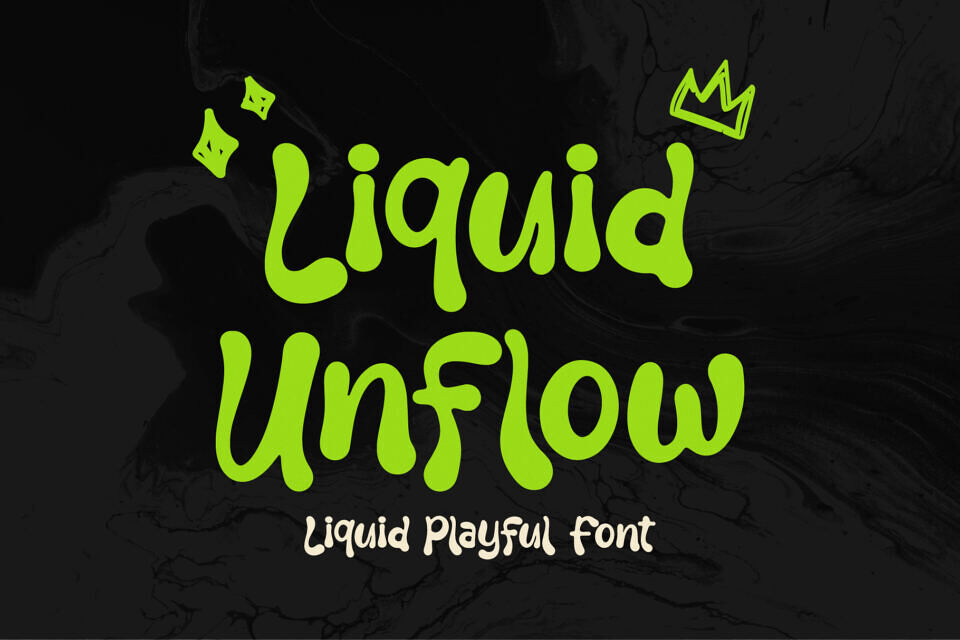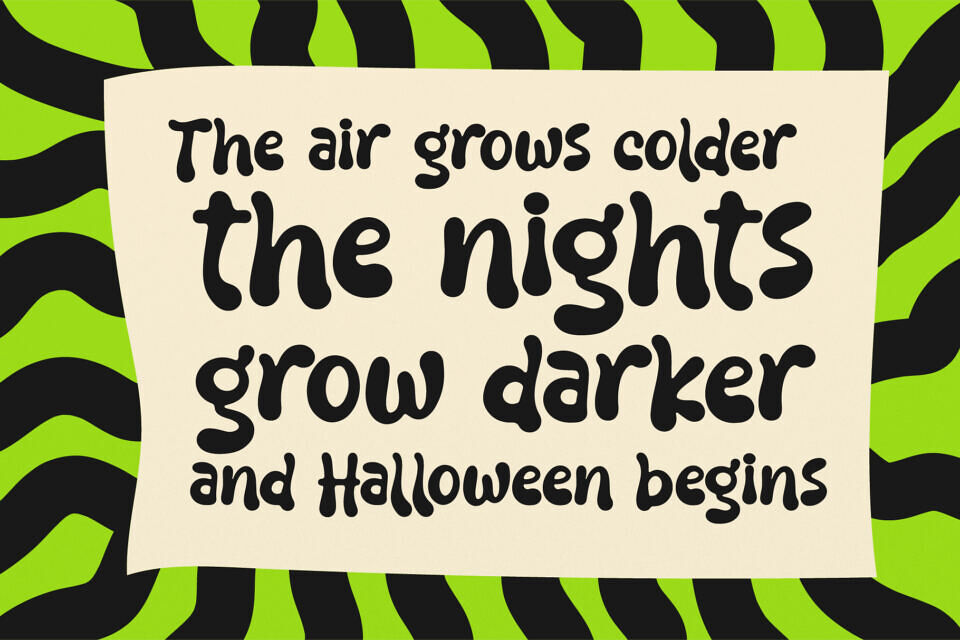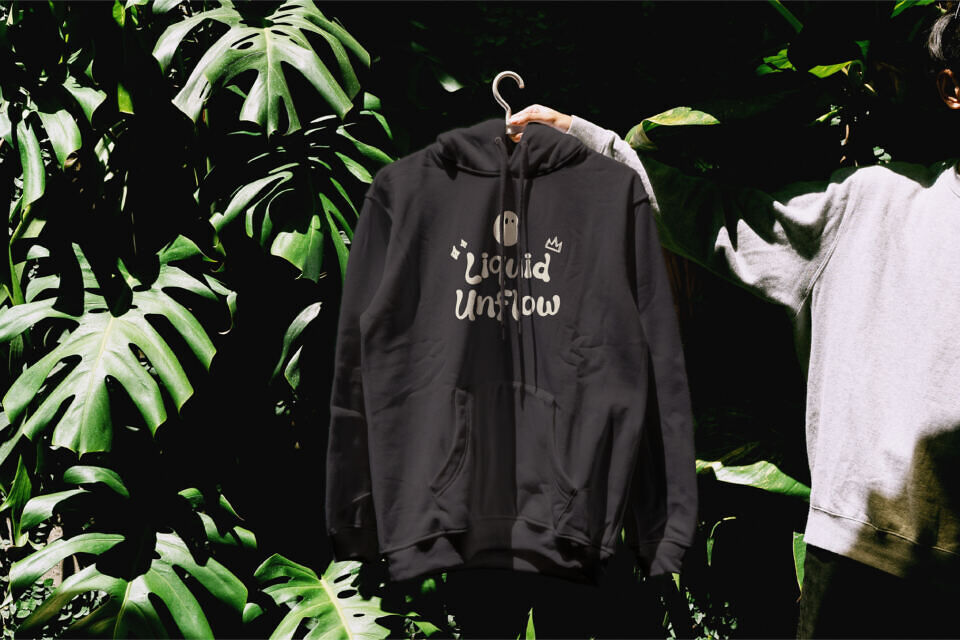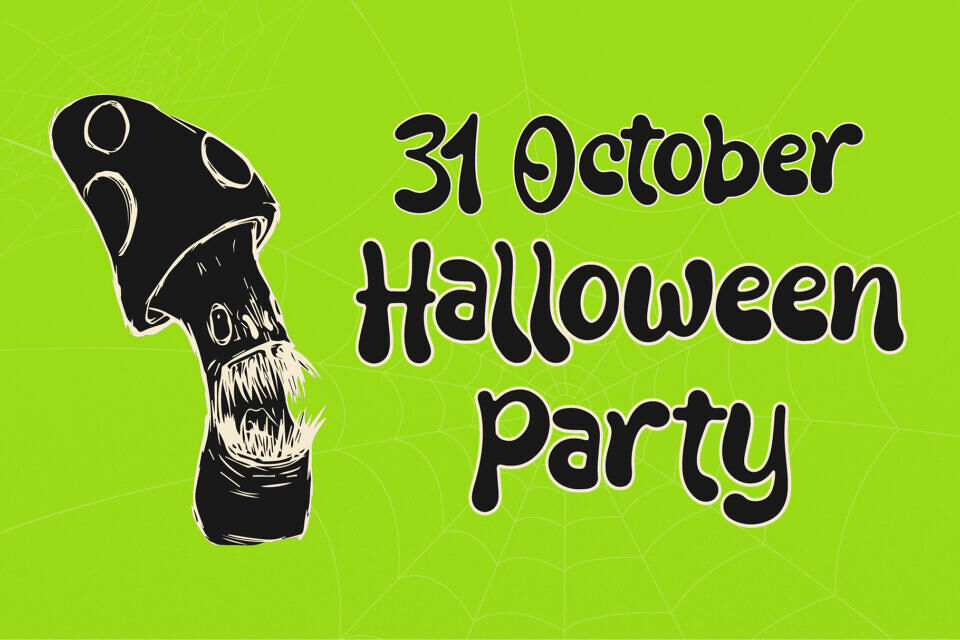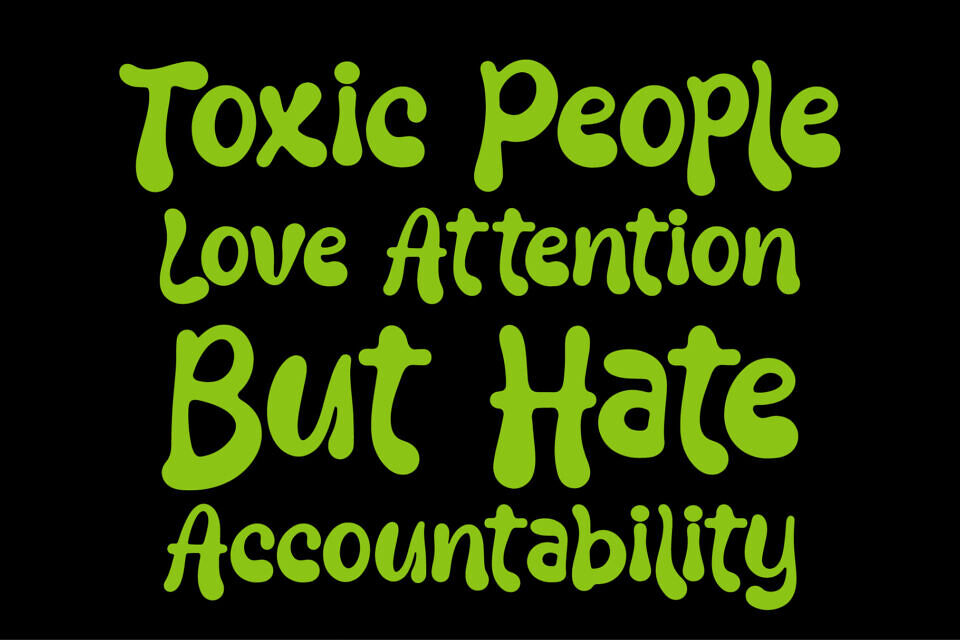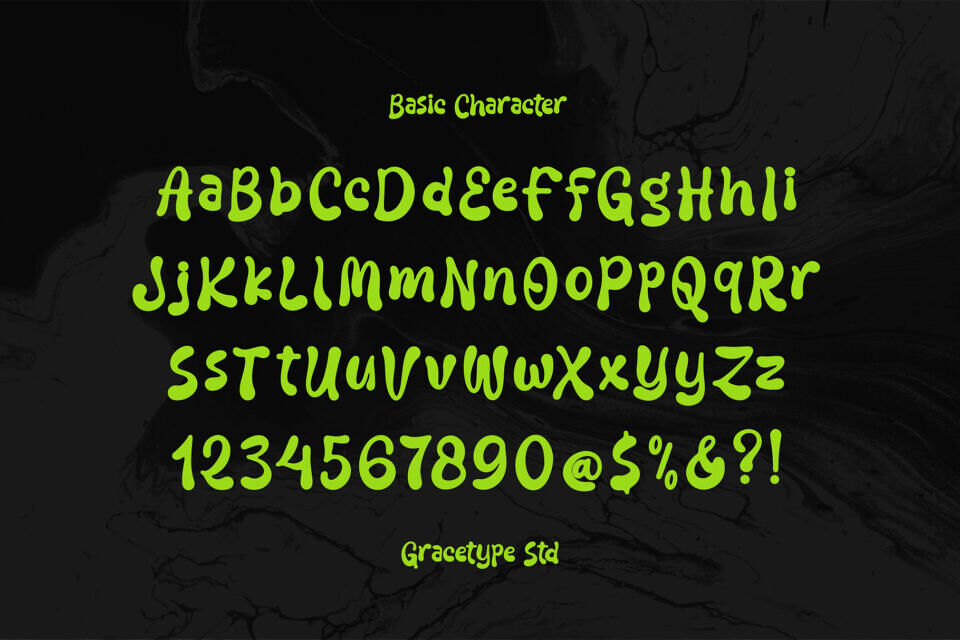
Add a dose of edgy style to your design with Liquid Unflow, a bold display font. Its fluid, melting letters have a unique, wavy shape and a hand-drawn feel that blends retro grunge and modern street style.
Perfect for alternative logos, skate decks, and eye-catching social media headers, Liquid Unflow makes a rebellious statement with its solid, attention-grabbing presence. It’s ideal for independent brands, energy drinks, and bold events like neon Halloween parties.